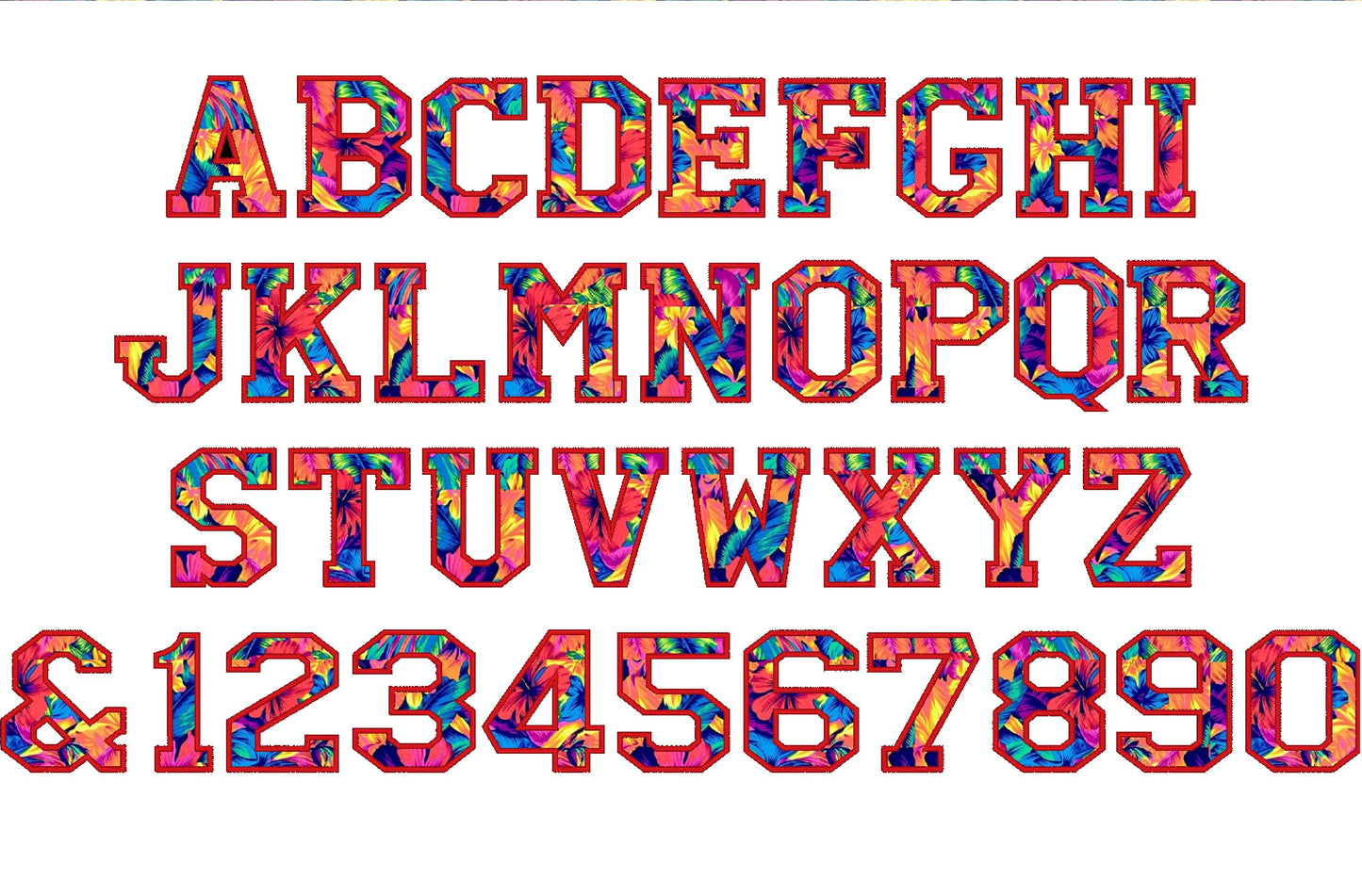
Or click to open the linkA varsity collegiate block font with an outline, stitched as applique. Classic for team shirts, jackets, sweatshirts and bags.
Uppercase letters A to Z, numbers 0 to 9 and an ampersand, in six sizes: 3, 4, 4.5, 5, 6 and 7 inches.